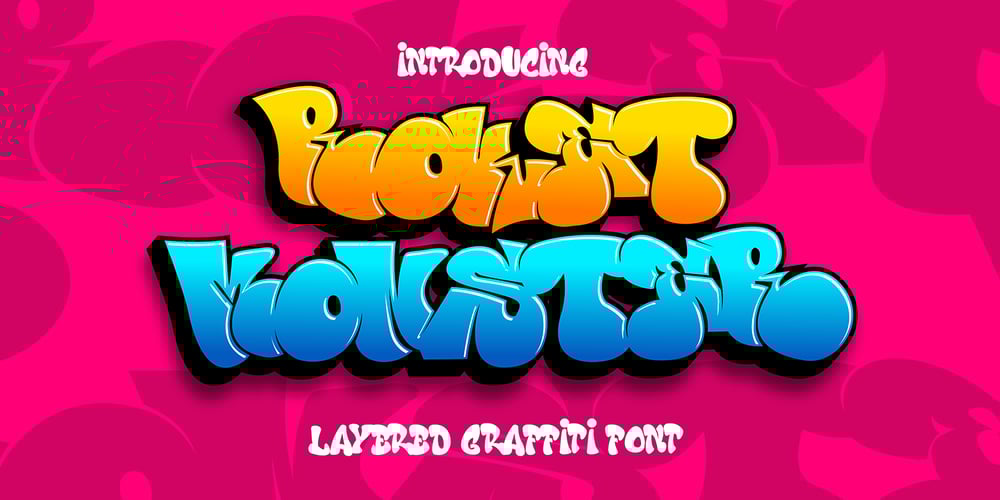
Roket Monster Graffiti Font Family was designed by Sipanji and published by Sipanji21. Roket Monster Graffiti contains 3 styles and family package options. Roket Monster is an urban graffiti font characterized by sharp edges and a bold look. Ideal for music posters, apparel designs, shirts, and streetwear, this font brings a touch of edginess to your projects. The unique style of “Roket Monster” makes it the perfect choice for street style or urban graffiti themes. Whether you want to create a strong and powerful statement or simply add a touch of attitude to your designs, “Roket Monster” is the font for you.